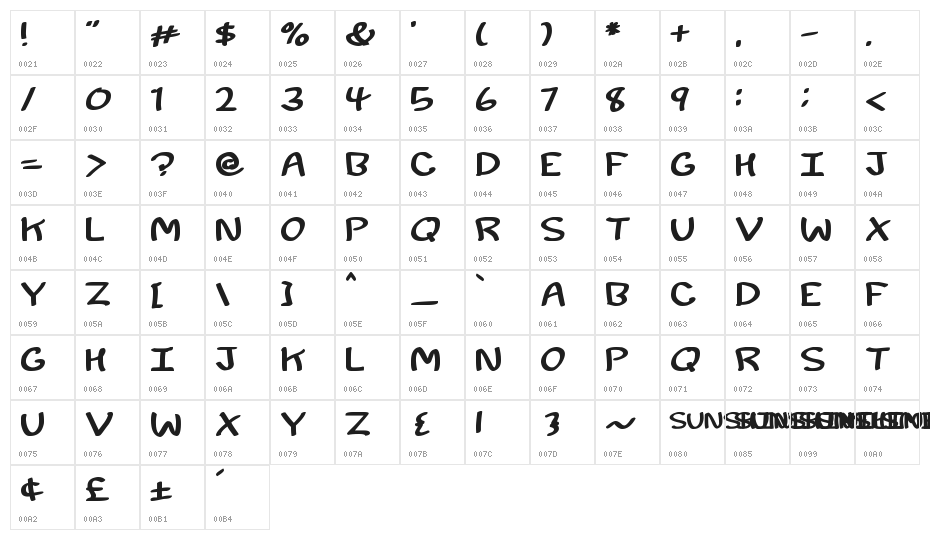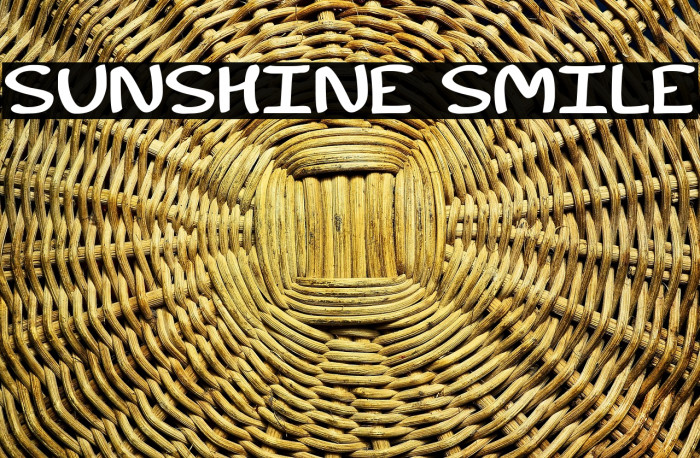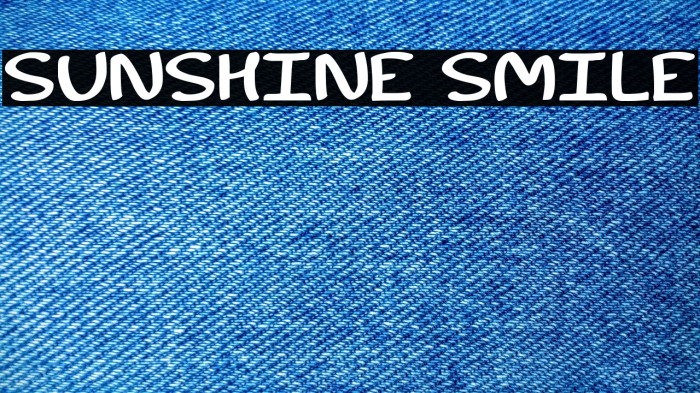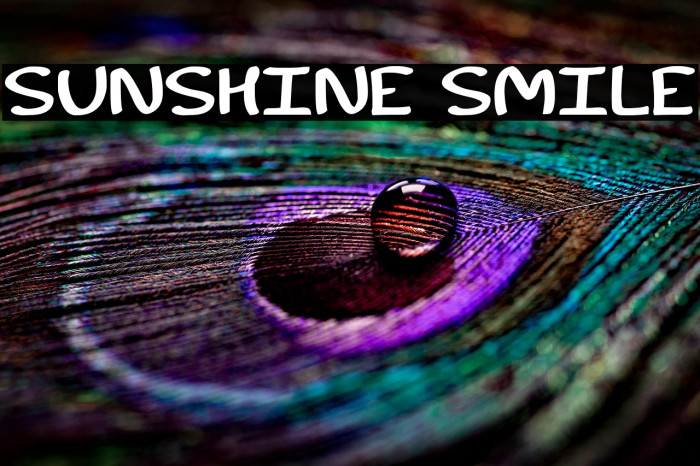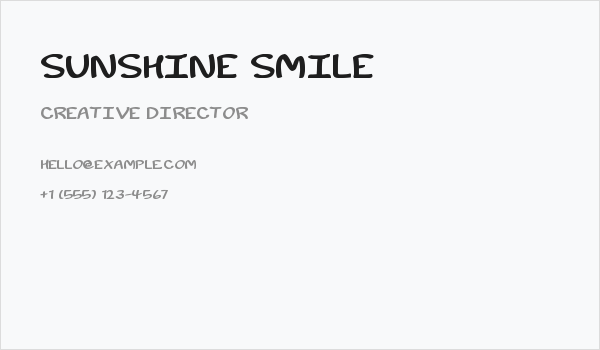
Sunshine Smile Font
Sunshine Smile Description
This playful and energetic font features a handwritten style with bold, rounded strokes that convey a sense of warmth and friendliness. The characters are slightly slanted, adding a dynamic and casual feel. The uppercase and lowercase letters maintain a consistent style, with smooth curves and a uniform thickness that enhances readability. The numerals and special characters are designed to match the lively aesthetic, making them suitable for a variety of creative applications. The overall appearance is approachable and informal, ideal for projects that require a personal touch.
| Overall Style | Casual |
| Use Case | Headlines, Logos, Informal Text |
| Proposed Projects | Ideal for greeting cards, children's books, playful branding, and social media graphics. |